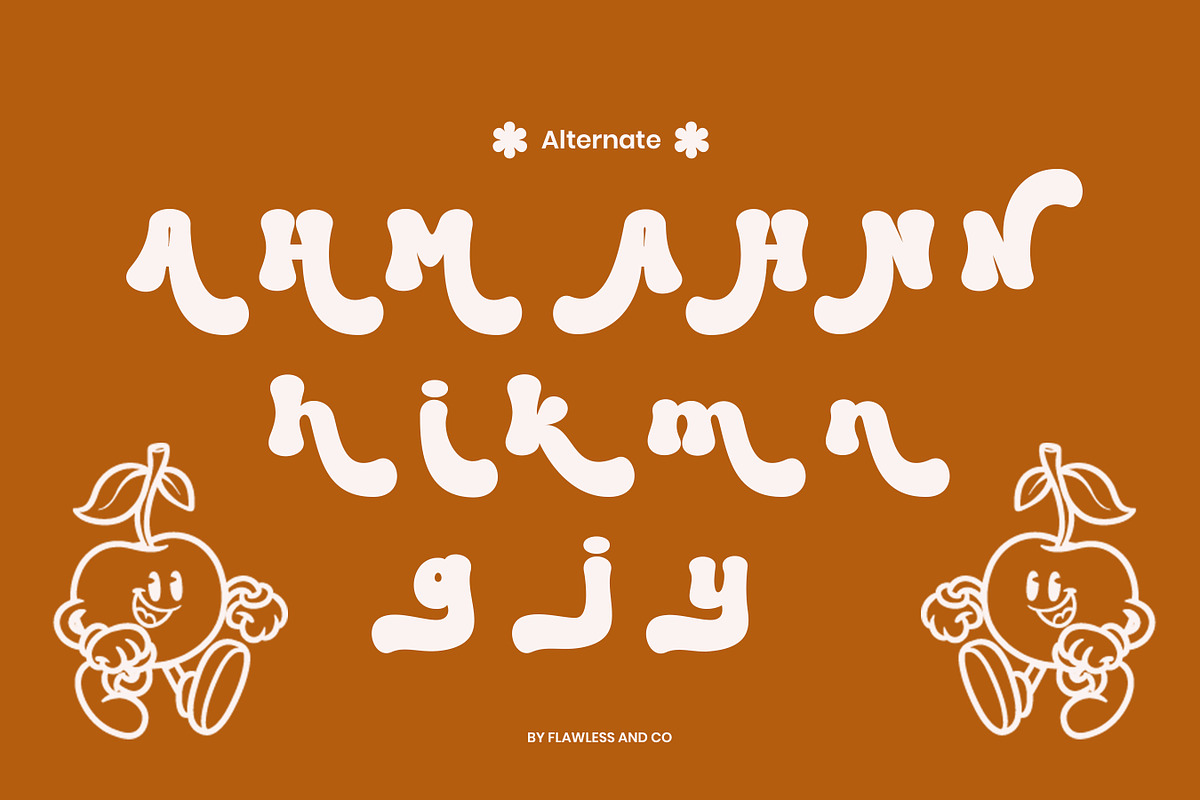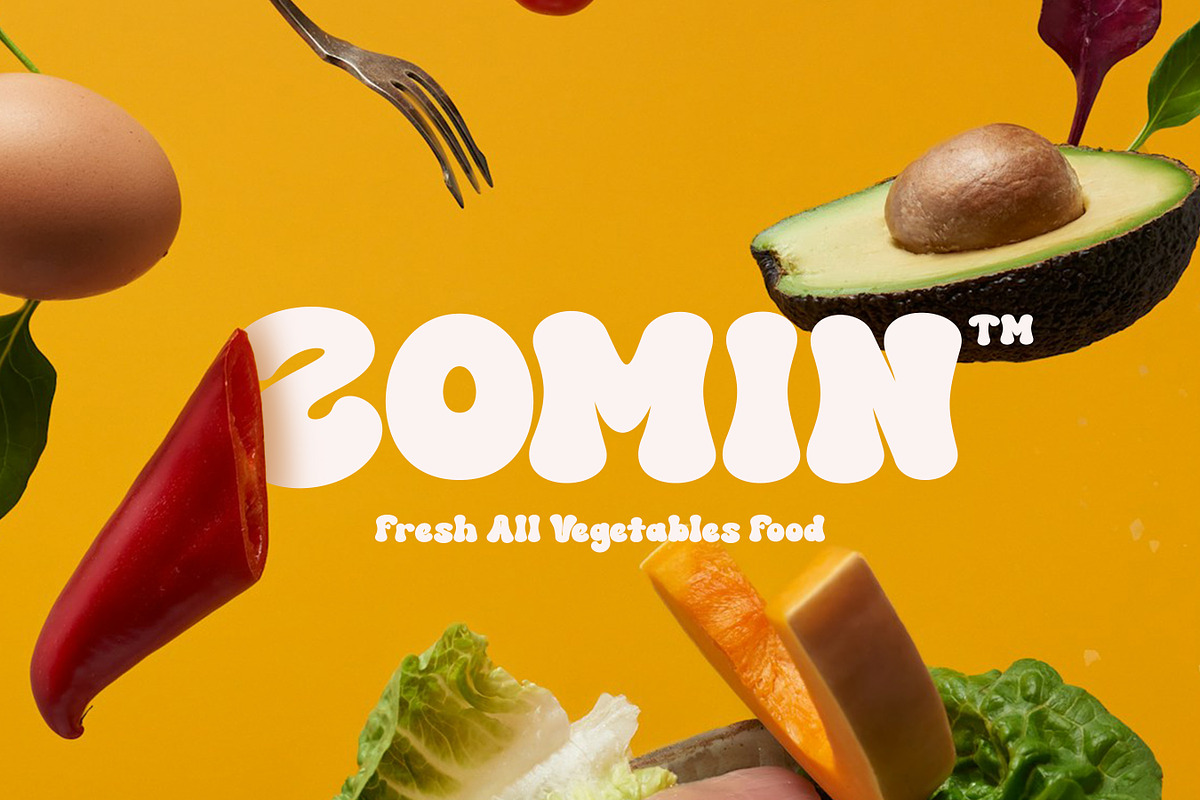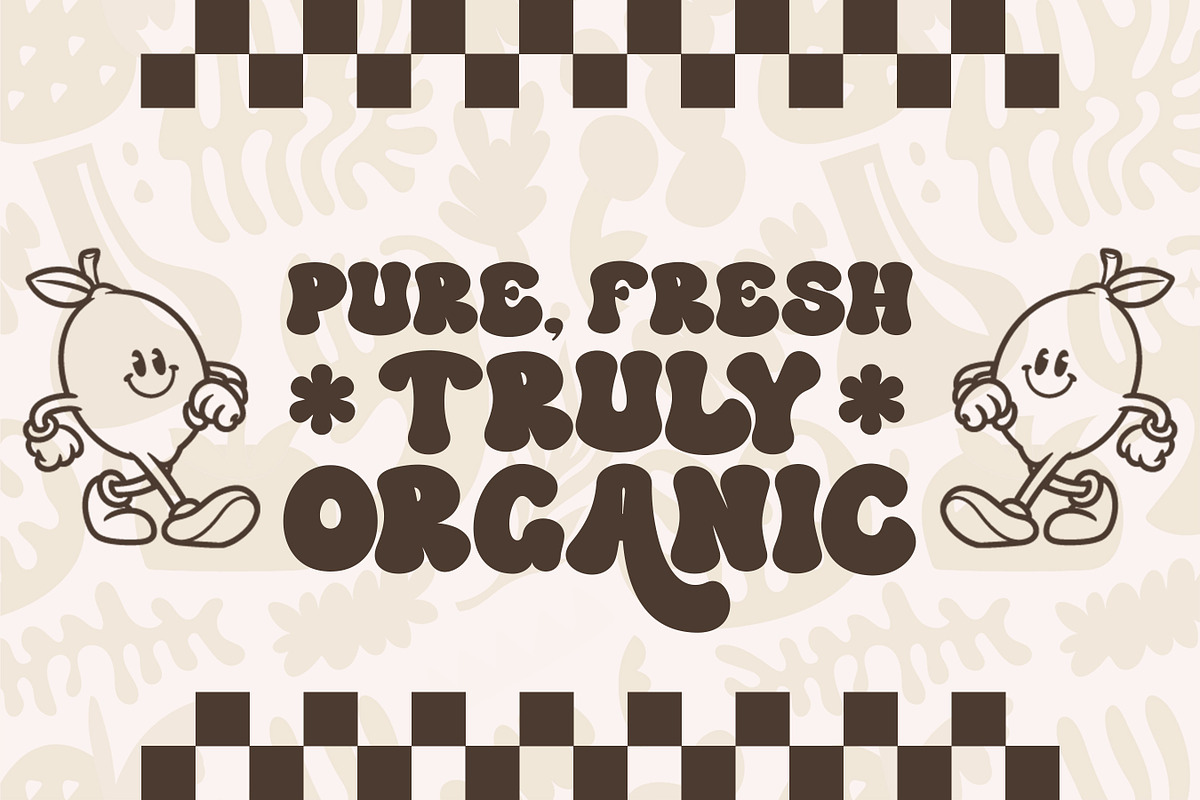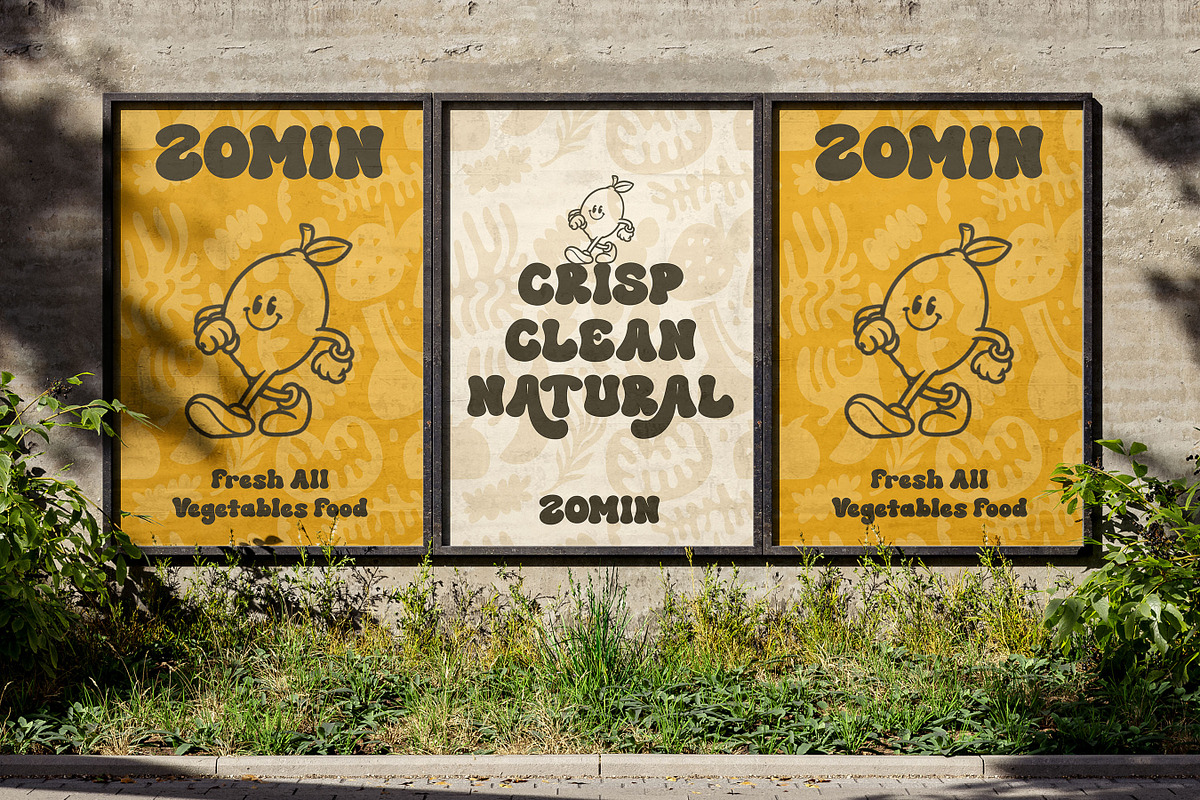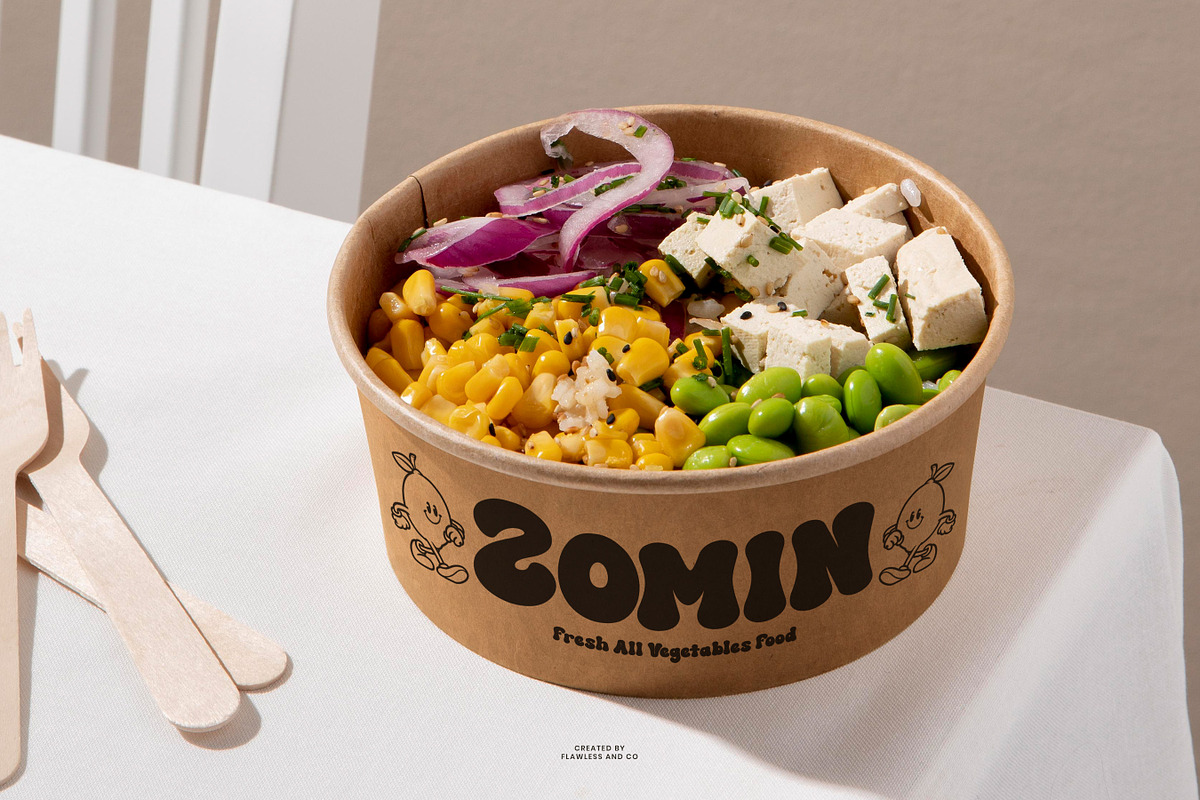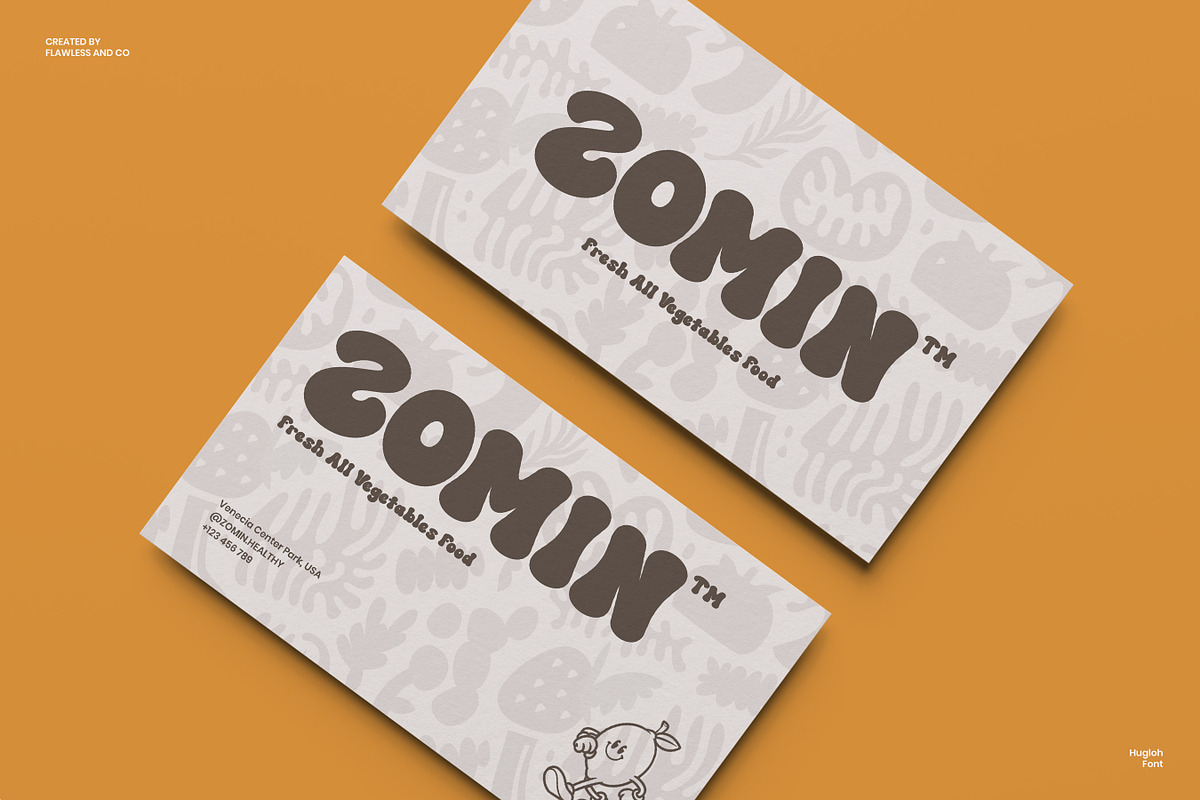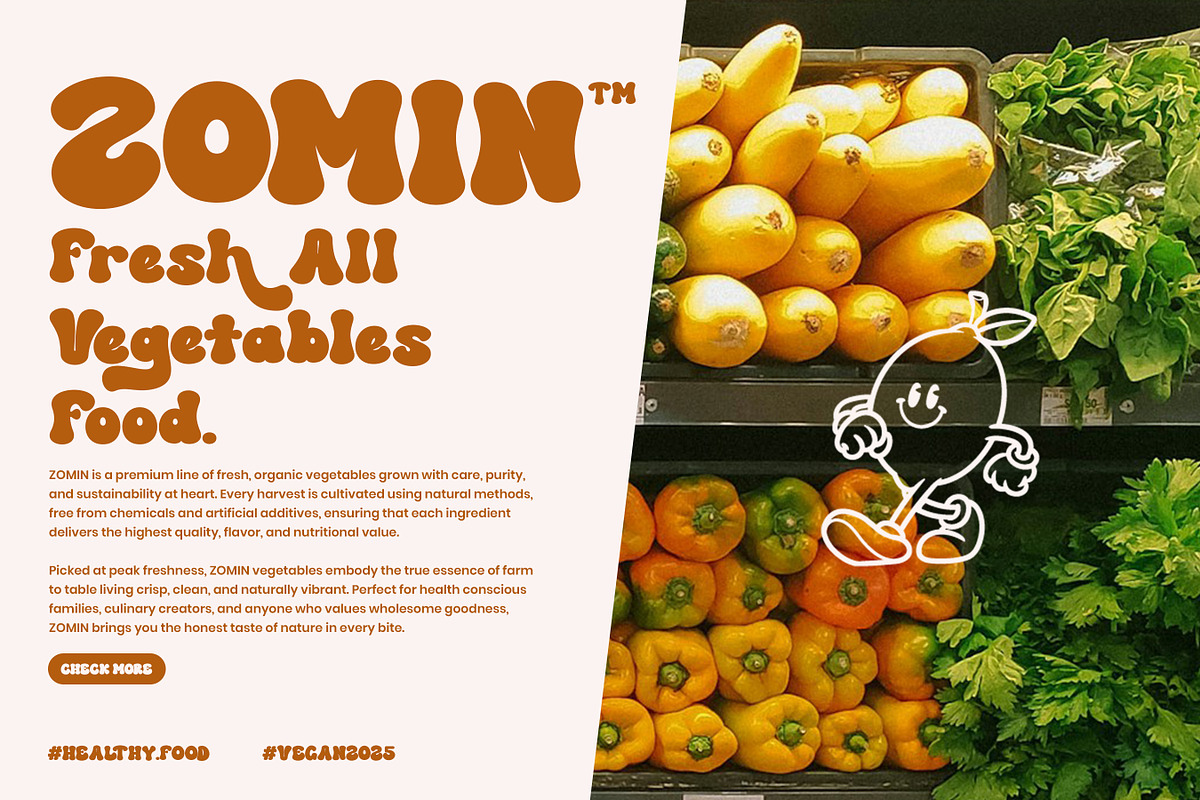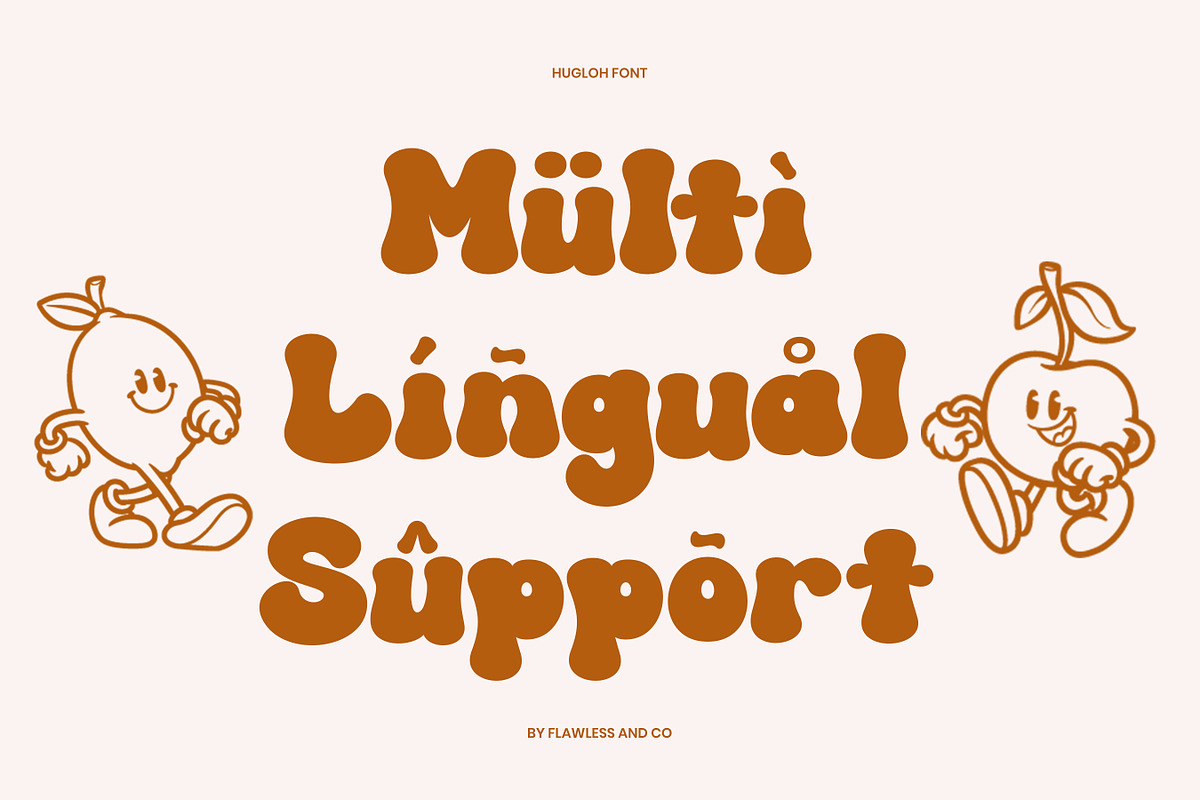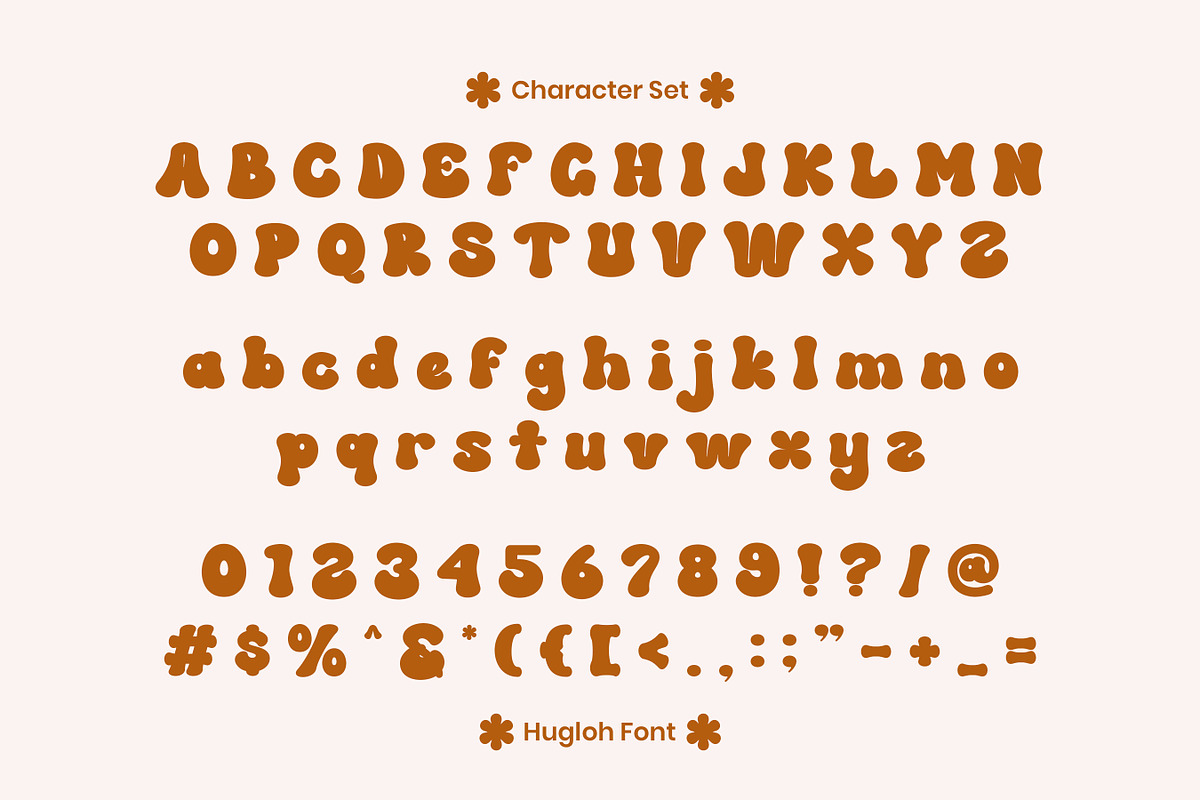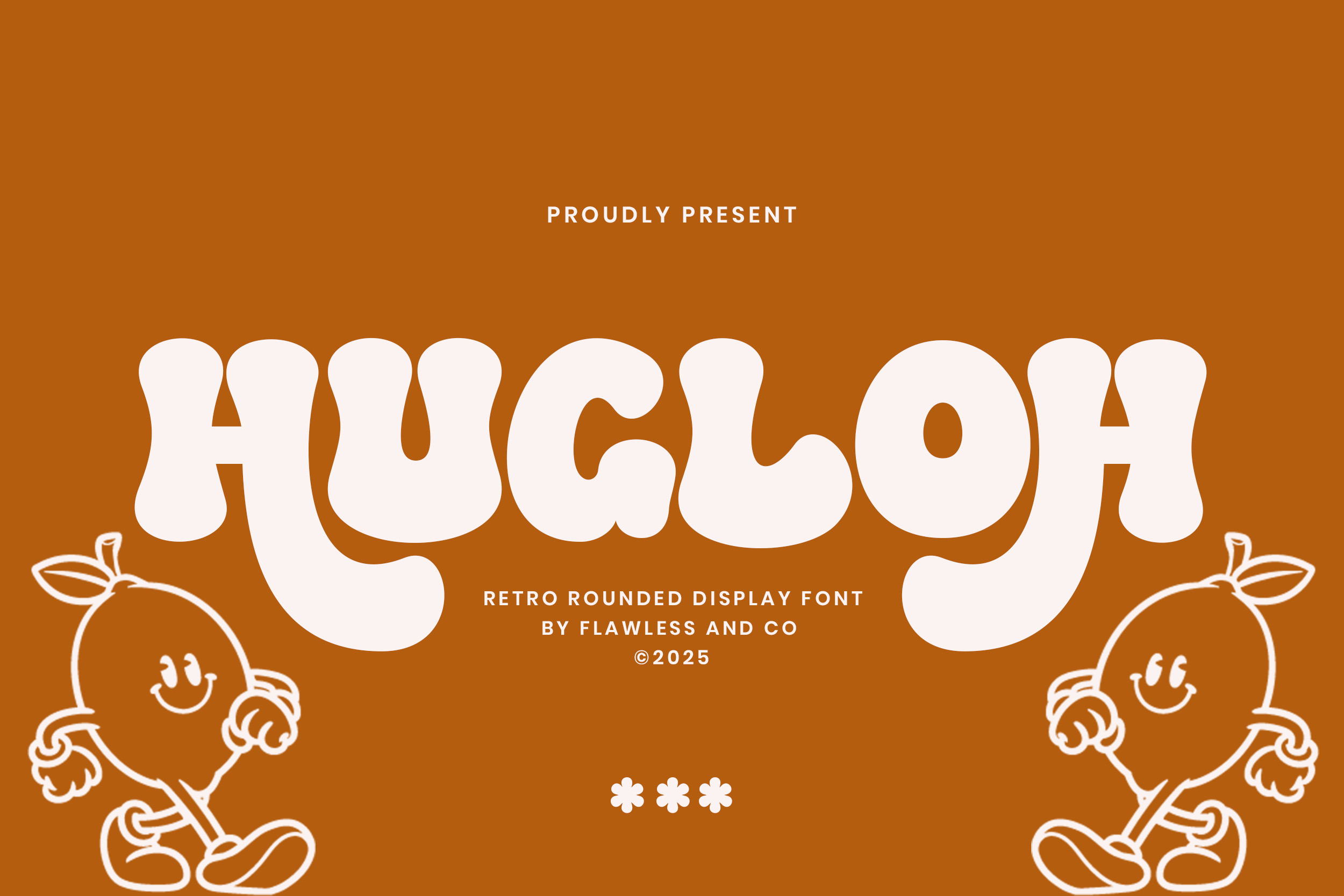
Hugloh - Rounded Display Font
Hugloh - Display Font
Hugloh is a retro rounded display font that brings warmth, charm, and playful personality into every design. The rounded letterforms create a friendly and inviting feel, making it perfect for designs that want to stand out with joy and approachability. Whether you’re creating logos, packaging, posters, or playful visual identities, Hugloh delivers a fun retro touch that feels memorable, happy, and full of character.
Who Should Use Hugloh?
Hugloh is perfect for designers and creatives who want to bring a fun, friendly, and nostalgic feel to their work. It’s especially suited for brand and logo designers creating playful identities, illustrators and creatives working on cheerful visual concepts, and packaging designers who want their products to feel warm and eye-catching. Hugloh is also ideal for children’s projects, retro-inspired designs, posters, merchandise, café or food branding, and social media graphics that need a bold yet lovable display style.
A Must-Have Font for Brand and Logo Creators and Designers
Hugloh is a must-have display font for brand and logo creators who want to build a friendly, playful, and memorable visual identity. Its retro rounded shapes deliver a warm and cheerful personality, making logos feel approachable, fun, and instantly recognizable across both digital and print media.
Why Choose Hugloh for Brand and Logo Projects?
Hugloh brings a playful retro charm with rounded letterforms that instantly create a friendly and eye-catching look. Its bold and smooth shapes make logos stand out clearly while remaining easy to read. Perfect for brands that want to feel fun, nostalgic, and approachable, Hugloh helps turn simple logos into joyful and memorable identities.
Suitable for:
- Brand and logo design
- Food & beverage branding
- Kids, playful, and lifestyle brands
- Packaging design
- Posters and flyers
- Merchandise and apparel
- Social media graphics
- Retro, fun, and cheerful visual projects